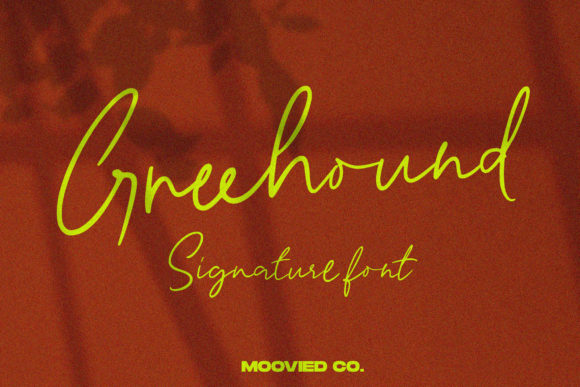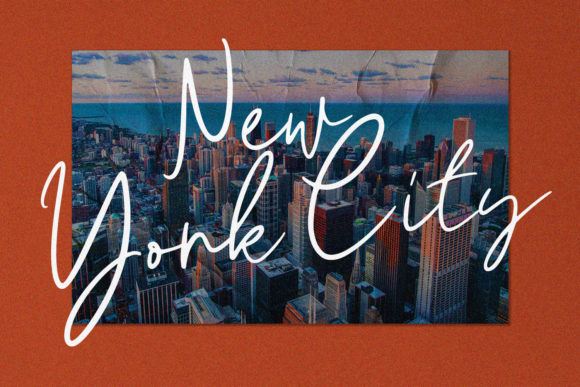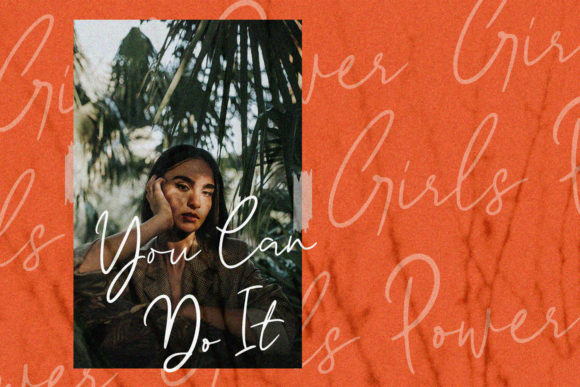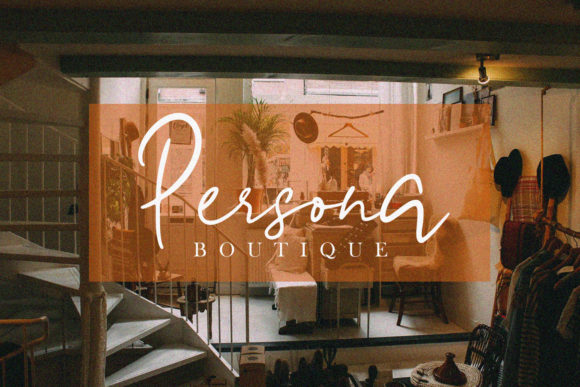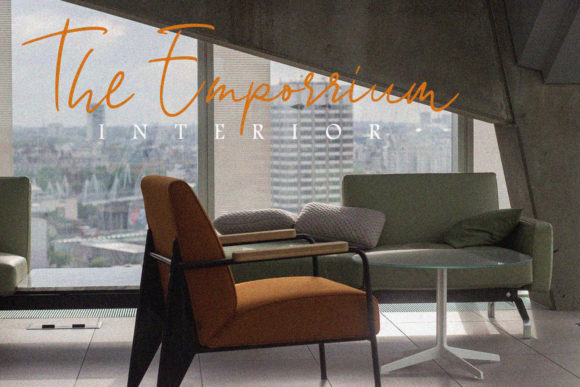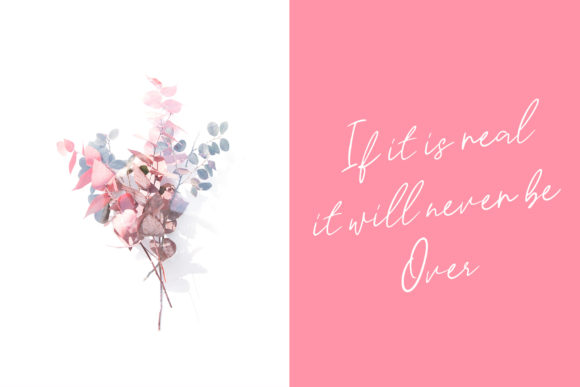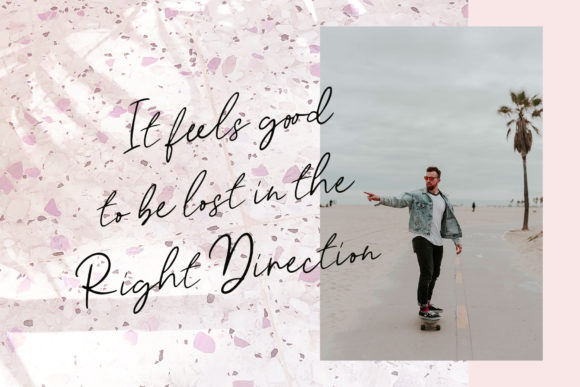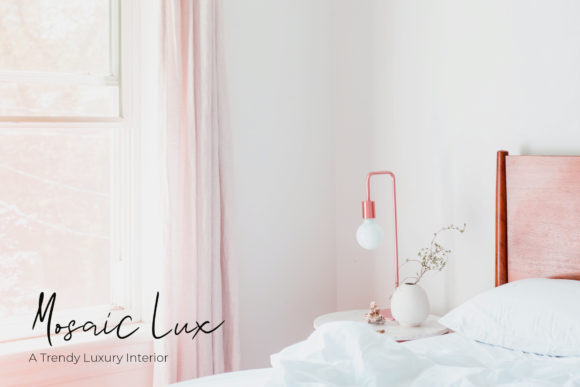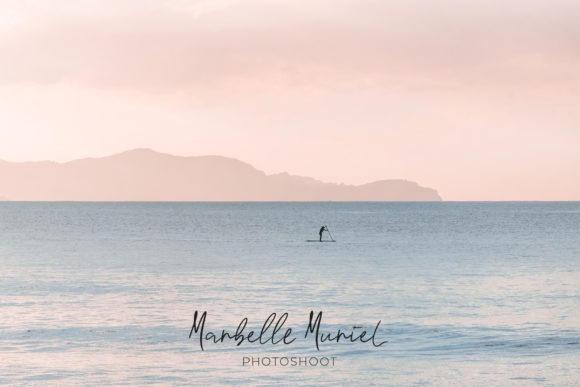
Greehound Font
About Greehound Font
Greehound is a simple and modern signature font with a casual style. It will add a unique spark to any design project!